20 Beautiful Fonts For Your Aesthetic Designs
Do you want to make stunning creations with fonts that match your style and mood?
If yes, then you are in the right place. This blog will show you 20 beautiful fonts perfect for your aesthetic projects. These fonts are gorgeous, eye-catching, versatile, and easy to use.
You can use them for logos, posters, flyers, social media posts, etc. From elegant and sophisticated to playful and whimsical, these fonts have something for everyone.
So, let’s get started and discover these 20 beautiful fonts that will take your aesthetic designs to the next level.
List Of Beautiful Fonts For Aesthetic Designs
Hello Cinta Font
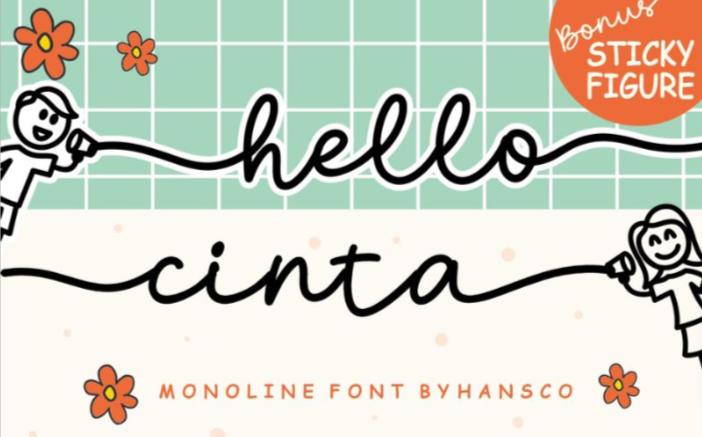
Hello Cinta is a unique font made with lots of care and attention. It’s not just any font—it’s like a magic pen that can make your stuff look awesome! You can use it for all sorts of things, like making cool logos, party invitations, writing big headings, putting words on t-shirts, and even making your letters and signs look super fancy. It’s a font that can do a bit of everything, making your posters, badges, and news stand out. Hello Cinta is the friend your words have been waiting for!
Bochan Font
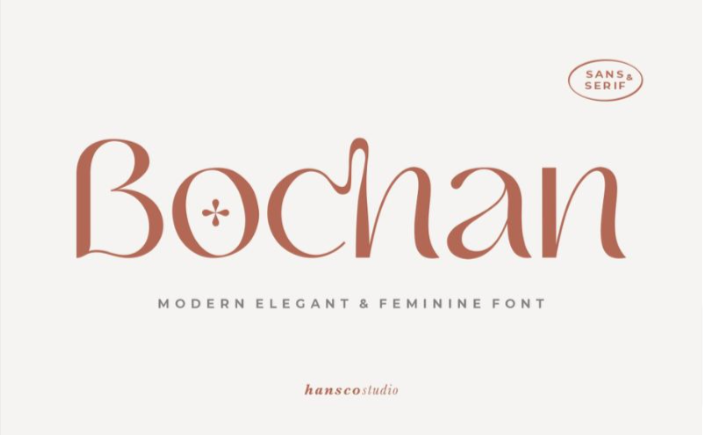
Bochan is super fancy and looks classy. The letters are smooth and round, making them look cool. You can use it for various projects, like making logos that stand out, putting together packs of stuff that show off a brand, making things look pretty for weddings, and even adding style to quotes and ads. Bochan is like the secret ingredient that makes everything look timeless and incredible.
Pauline and Fairy Font
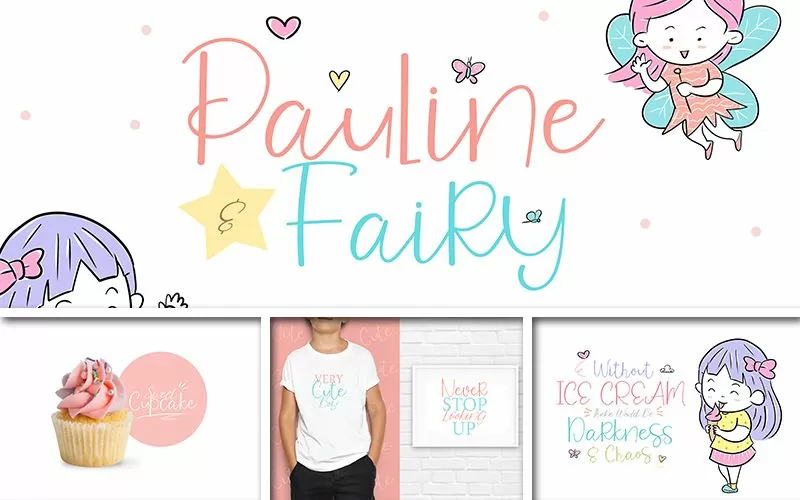
Pauline and Fairy font is a display and script typeface with fantastic characters in 2 different styles, regular and italic. It can make anything look amazing! Need a snazzy name card? Pauline and Fairy has got you covered. Want to make a poster that stands out? This font is on it. It can even make your T-shirt or banner look super cool. It is the superhero of pretty fonts, making everything from logos to magazines look fantastic!
Abelia Font
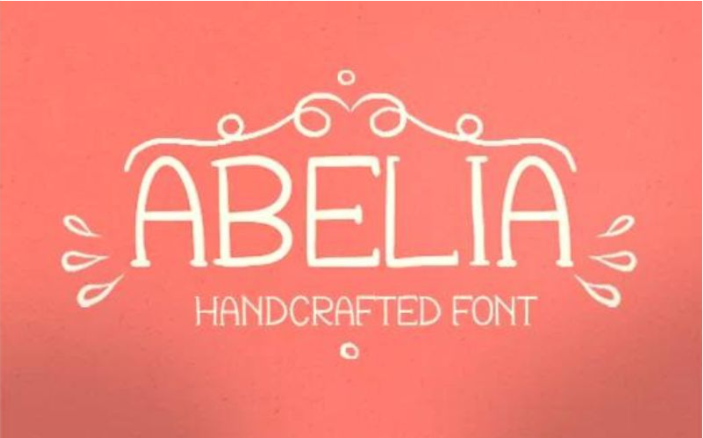
Abelia is great for making titles and notes stand out because of its big, bold letters. But here’s the cool part—it also knows how to make subtitles and paragraphs look pretty awesome! Reading it is like a breeze; it looks even fancier with handmade decorations. Some might think it’s missing small letters, but that’s on purpose! The focus is on making beautiful titles, and having lowercase letters would steal the show.
Retroking Font
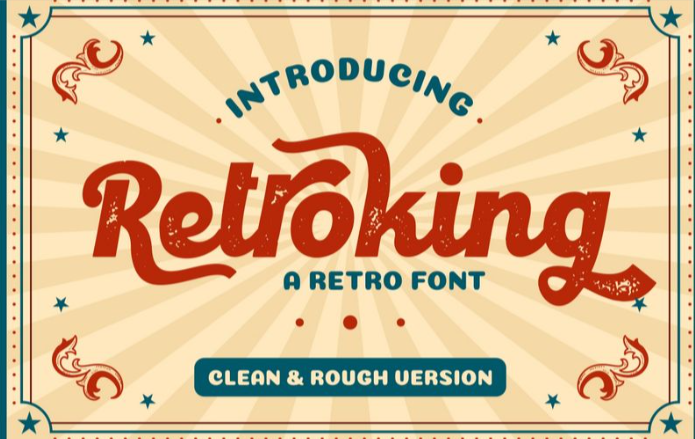
Say hello to Retroking, the font that brings back the cool vibes of the past. It’s like a time machine for your words, with both a clean and a rough version. Imagine it as your go-to superhero for making things look old-school and awesome! Retroking is a pro at making vintage stuff, like badges, logos, and those cool designs on T-shirts. It can turn posters, branding, packaging, and even signs into a blast from the past. It’s like the secret ingredient for giving your book covers that extra touch of retro magic. Retroking is here to make your projects look classic and rad!
Seronita Font
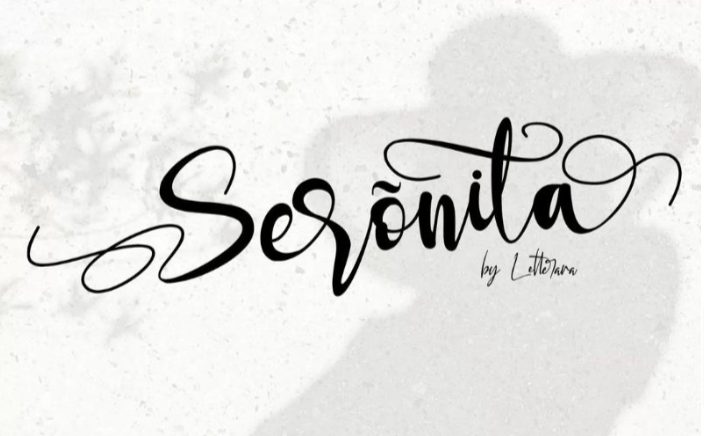
Meet Seronita, the font that’s like modern-day fancy handwriting. It is one of the best beautiful cursive fonts. It’s not like the regular letters; it has this incredible, natural way of writing that makes everything look super classy. Imagine using it to make your stuff feel elegant and luxurious—like a fancy party for your words! Seronita is here to add that special touch to your designs and make them stand out with modern elegance.
Bolor Brush Font
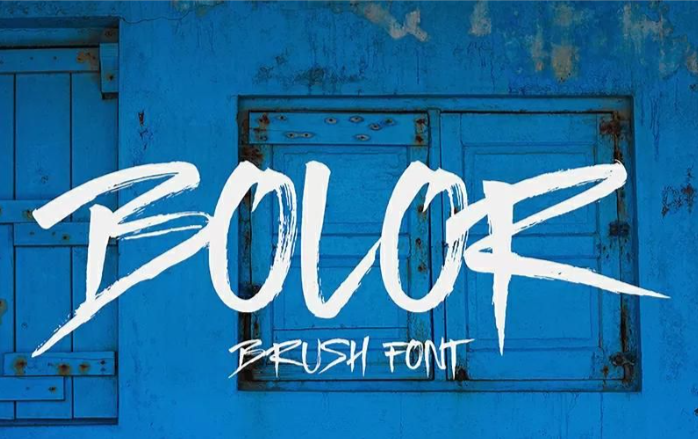
Imagine using Bolor Brush, a unique handcrafted font with a relaxed style. It’s perfect for all sorts of design things like logos, quotes, t-shirts, posters—pretty much anything you can think of! And the best part? You can use it in big letters, small letters, numbers, and even punctuation marks. How cool is that?
Barberino Font Family
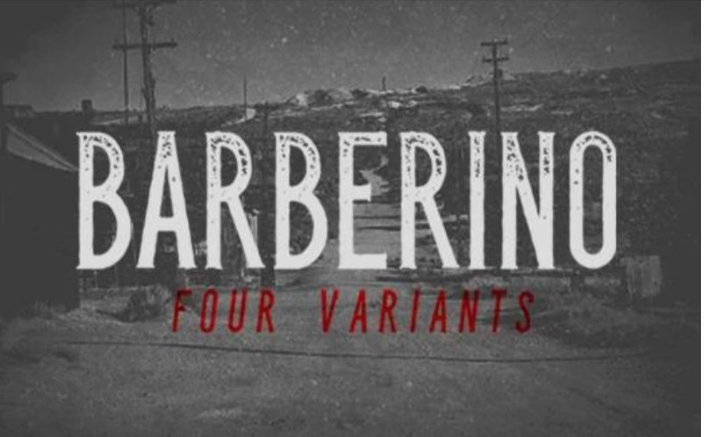
Barberino is a font made by DesignTNT. It comes in four styles: Clean, Rough, Rough Grunge, and Rough Italic. The tall letters and fancy serifs make it easy to read, and the rough, grungy bits add a cool touch to your messages. This font is all about making titles and sub-titles stand out. So, it only has big letters, small letters, and some special characters—just what you need to make your words pop.
Linaria Font
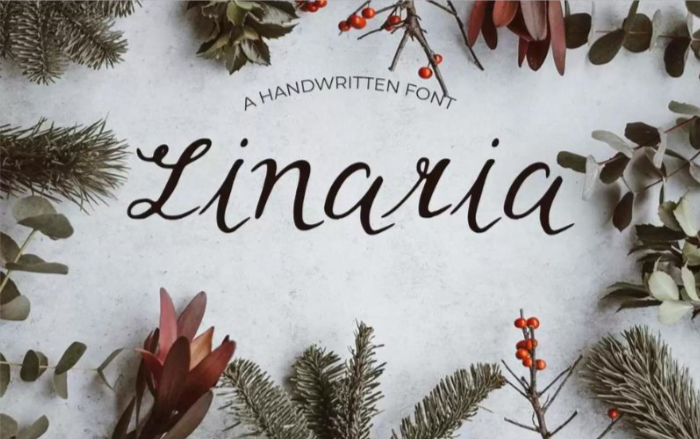
Guess what, design enthusiasts? Here’s a special treat for you—a free font with an extended commercial license! Introducing Linaria Font from Eldamar Studio, a classy mix of numbers and big and small letters. It’s just what you need for stunning logos, displays, headers, invitations, weddings, and more. Feel free to use it for all your creative projects!
Brainik Font Family
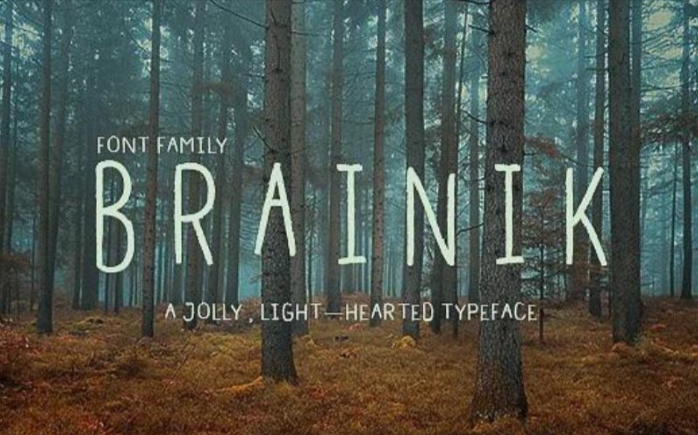
Sprinkle fun and happy vibes into your next project using the awesome Brainik family of beautiful fonts! There are 10 styles to choose from—Bold, Condensed, Regular, Thin, and more. Mix and match them however you want! These pretty fonts are perfect for making eye-catching headlines, posters, labels, logos, cards, T-shirts—anything you can dream up. Let your imagination run wild!